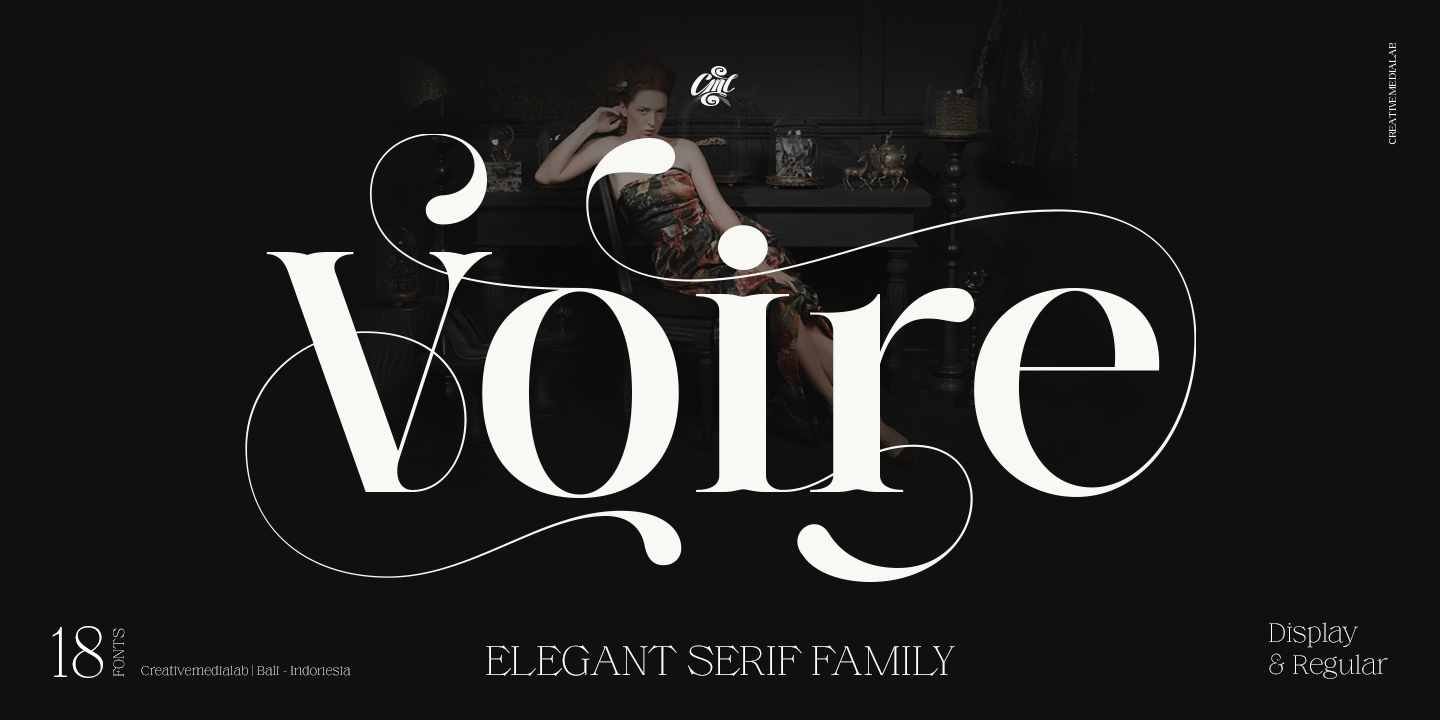
Voire Font excels in various design applications including French restaurant branding, European fashion magazines, sophisticated editorial layouts, luxury brand identities, elegant wine labels, cultural event materials, artistic publications, and refined advertising campaigns. This distinctive typeface adapts beautifully to both chic digital platforms and sophisticated print materials, making it perfect for designers seeking French elegance and continental sophistication in their visual communications.
Voire Font generates excitement among creative professionals due to its refined character and European styling that instantly conveys sophistication and continental charm. The font's elegant letterforms and cultured proportions create an immediate sense of luxury and French savoir-vivre. Its sophisticated personality makes it particularly appealing for brands wanting to communicate elegance, refinement, and European heritage in their visual identity.
The Voire Font family encompasses multiple weights and styles including Regular, Bold, Light, Italic, and Condensed variations. Each family member maintains elegant design principles while offering distinct sophisticated characteristics. The Light weight provides subtle French grace for delicate applications, while the Bold version delivers commanding impact for luxurious headlines and premium brand statements.
European designers frequently choose Voire Font Free Download for projects requiring both continental authenticity and brand distinction. This typeface demonstrates exceptional effectiveness across luxury industries including fashion, hospitality, wine, and cultural organizations. Its refined character allows brands to communicate French sophistication while maintaining excellent readability and elegant visual appeal that captures the essence of European style and continental refinement.